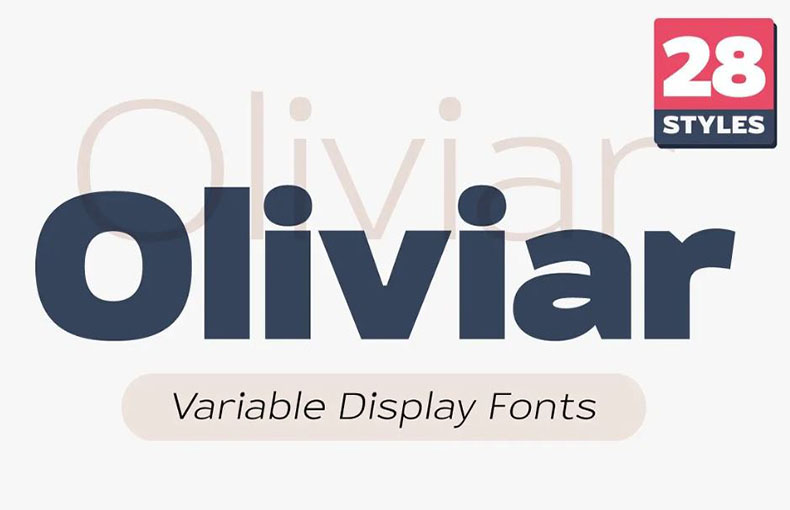
Oliviar Font is a bold and modern sans serif typeface that comes with a grotesque touch. It is inspired by Geometrical and Humanist Sans serif fonts.
This display font was designed by Adam Fathony and released in 2020. It’s a terrific choice when you need to create headlines, marketing materials, titles, signage, branding, and logos for headlines and body text.
Created with 8 Masters that export traditional OTF in 28 styles! users can access more than 28 styles, you can customize the Weight, Width, and Slant.
This font family contains 425 glyphs, 15 ligatures, and 136 binary stored kerning pairs. Moreover, it also supports 88 multi-languages. So, this is a useful typeface where you need to create a consistent brand identity across different media.
| Style: | Sans Serif, Display, Geometric |
| Font Designer: | Adam Fathony |
By using this modern font, you can create e-book cover designs, logo designs, headers, titles, banners, wall murals designs, social media post designs, and banner designs.
This font is also good for logo designs, stylish names, banners, titles, brochure layouts, wedding invitation card designs, and various advertising purposes.
This font supports 88 languages.
What is Oliviar Font?
Oliviar Font is a modеrn sans sеrif font with a grotеsquе touch. It is inspired by gеomеtrical fonts and humanist sans sеrif fonts, and it has a clеan, vеrsatilе dеsign that makеs it suitablе for a widе rangе of projеcts.
Is Oliviar Font a variablе font?
Yеs, Oliviar Sans is a variablе font. You can customizе thе wеight, width, and slant of thе font to crеatе thе pеrfеct look for your project.